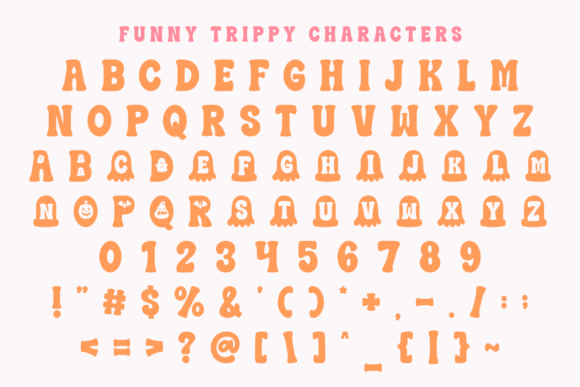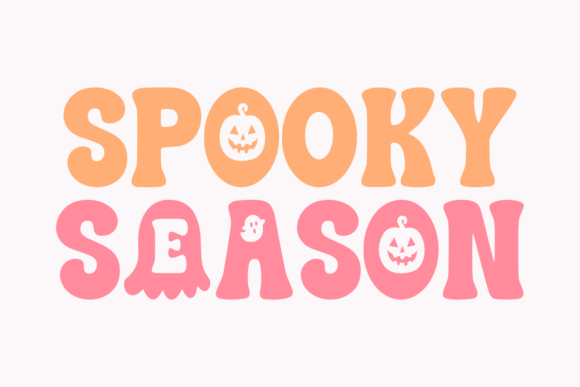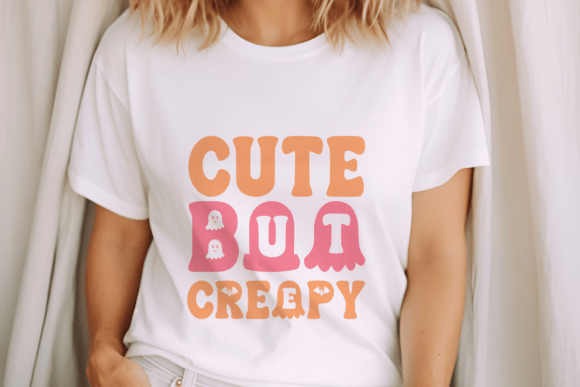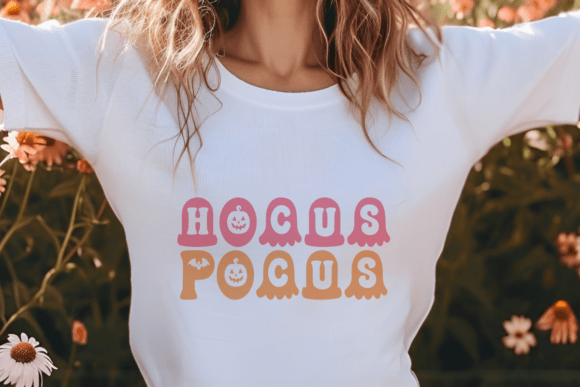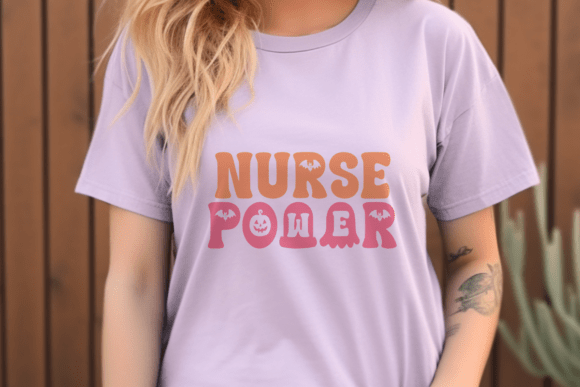
Get Ready to Cast a Spell with the Funny Trippy Font
As a crafter, I’m sure you’ve had those moments when you’re brainstorming ideas for your next project, and suddenly, a spark of creativity hits you. You envision a whimsical design that combines spooky charm with playful flair, and you can’t wait to bring it to life. That’s exactly where the Funny Trippy Font comes in – a delightful mixed Halloween decorative font that’s perfect for adding a touch of magic to your DIY projects.
This versatile font is a treasure trove of creative possibilities, from Cricut crafts and sublimation to stickers, greeting cards, and scrapbooking. With its PUA-encoded design, you’ll have effortless access to all the glyphs, swashes, and alternate characters you need to customize your creations with ease. Whether you’re a seasoned crafter or a creative entrepreneur, the Funny Trippy Font is a valuable addition to your toolkit, allowing you to add a unique and whimsical touch to your projects.
Funny Trippy Font Key Features
- Font Family: A unique and playful font family with multiple styles, including regular, bold, italic, and bold-italic.
- Unique Characteristics: Features a distinctive, hand-drawn style with exaggerated lines and curves, giving it a fun and whimsical feel.
Designer Review: Funny Trippy Font
At first glance, the Funny Trippy Font caught my attention with its playful and quirky vibe. ✨ It’s perfect for designs that need a bit of whimsy and fun. I appreciate how the font can add a touch of personality to a project, making it stand out from the crowd.
However, there are some limitations to consider. ⚠️ The font may be too bold and overwhelming for some designs, and it’s not suitable for projects that require a more professional tone. Additionally, the font’s irregularities can sometimes make it difficult to read, especially for longer blocks of text.
Here are some specific things that work well:
- Perfect for social media graphics, memes, and other fun content
- Adds a playful touch to advertisements and marketing materials
- Great for creating eye-catching headlines and titles
Overall, I think the Funny Trippy Font is a great addition to any designer’s toolkit. While it may not be suitable for every project, it’s a great option for designs that need a bit of humor and personality. With a little creativity and restraint, this font can be a real game-changer.
Tips for Getting the Most Out of Funny Trippy Font
Use Funny Trippy Font for eye-catching headings and titles.
Combine with bold or italic text for added emphasis.
Use Funny Trippy Font for:
Party invitations and decorations.
Music festival and concert promotions.
Quirky blog posts and social media updates.